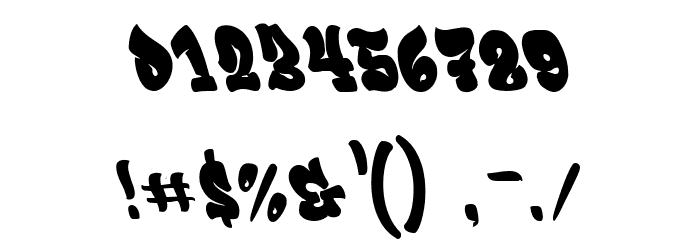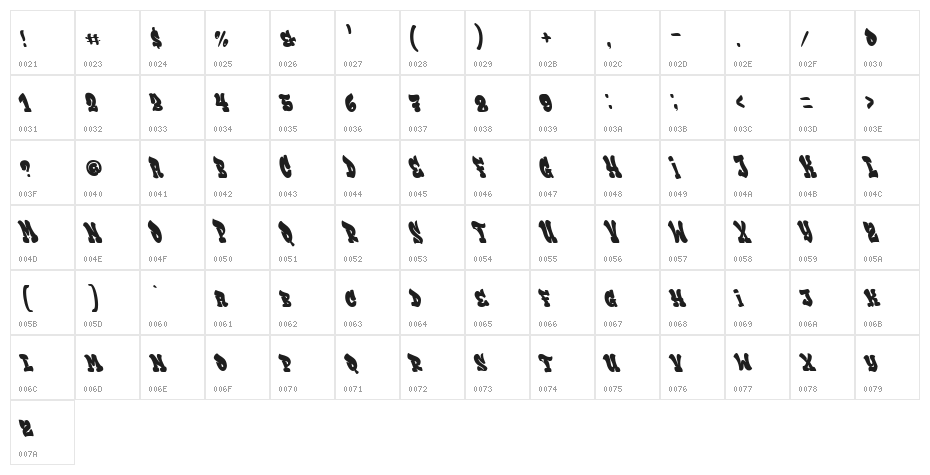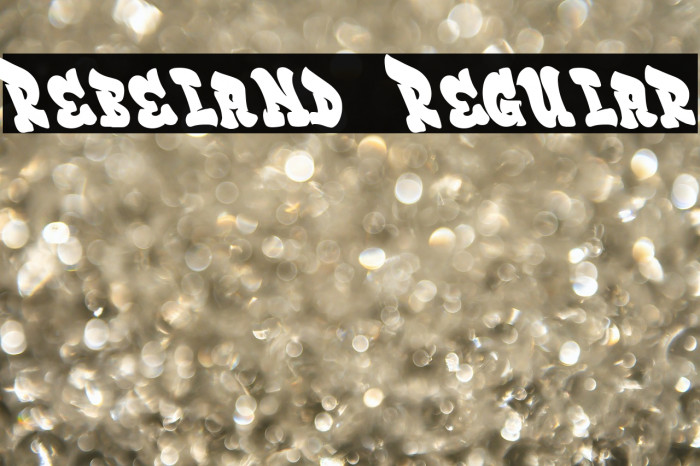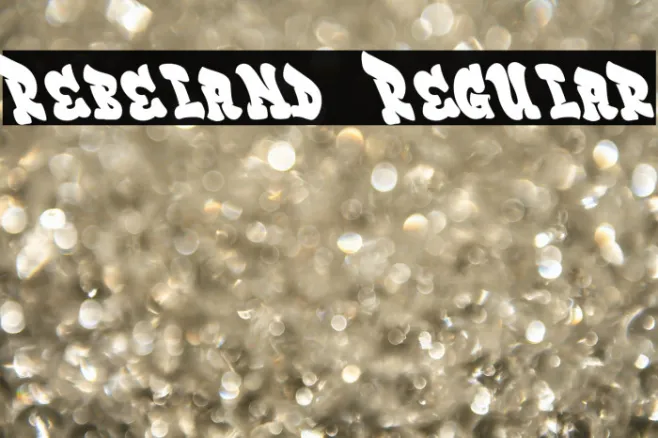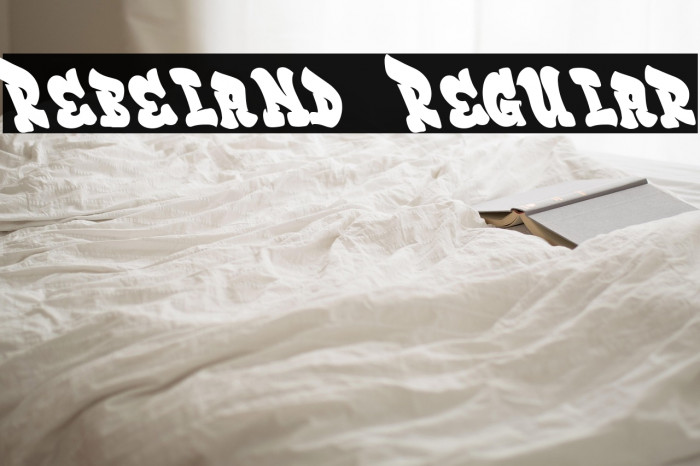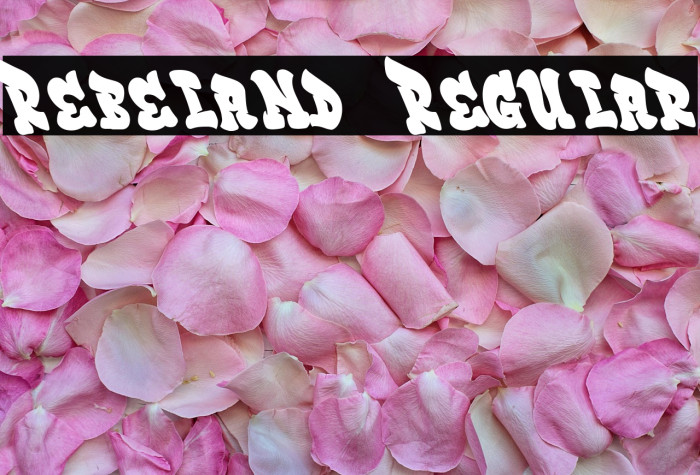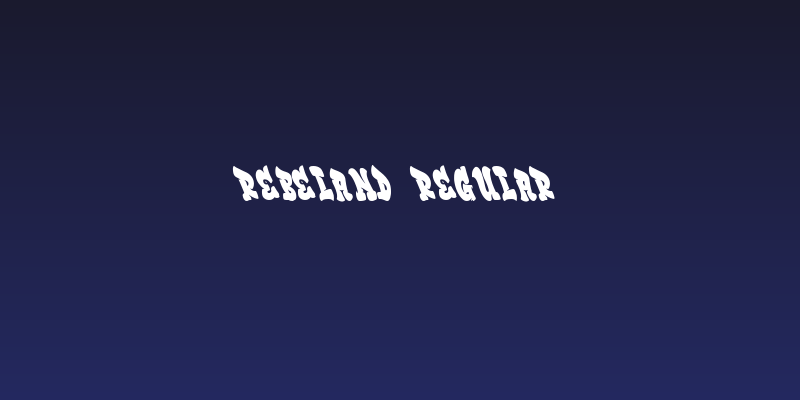
Rebeland Regular Font
This font features a bold and playful style with exaggerated curves and a dynamic presence. Each character is designed with a thick, heavy stroke, giving it a strong visual impact. The letters have a whimsical, almost cartoonish quality, making them stand out in any design. The font's unique style is characterized by its irregular shapes and bold outlines, which add a sense of movement and energy. It is perfect for projects that require a fun and eye-catching typeface.
A bold, playful font with exaggerated curves and a dynamic presence.
- Proposed Projects: Ideal for posters, children's books, comic strips, and playful branding.
- Overall Style: Playful, Whimsical